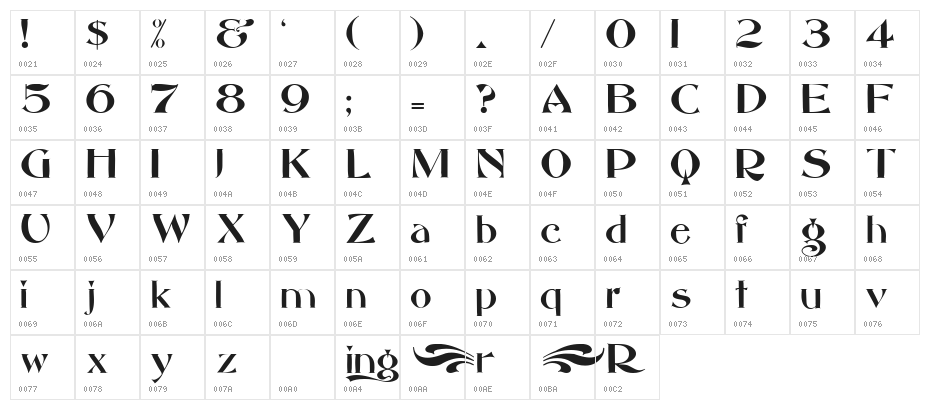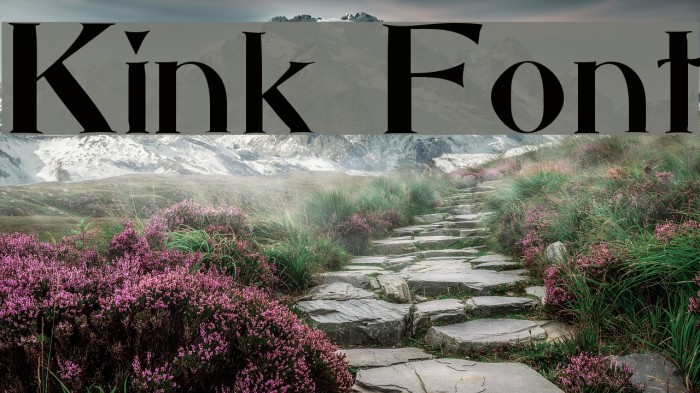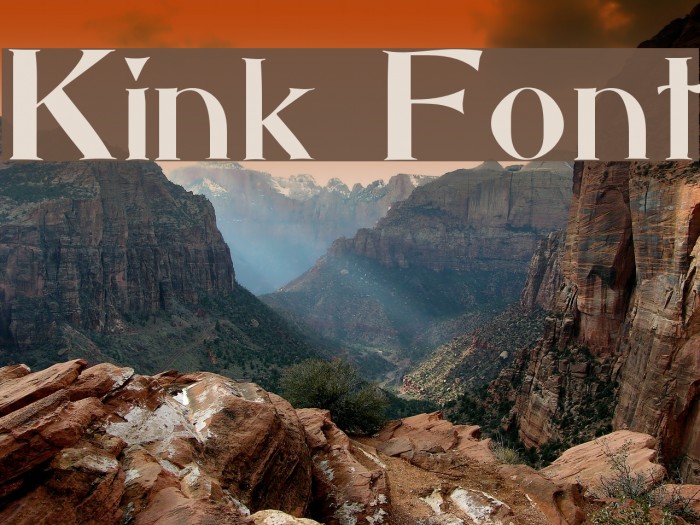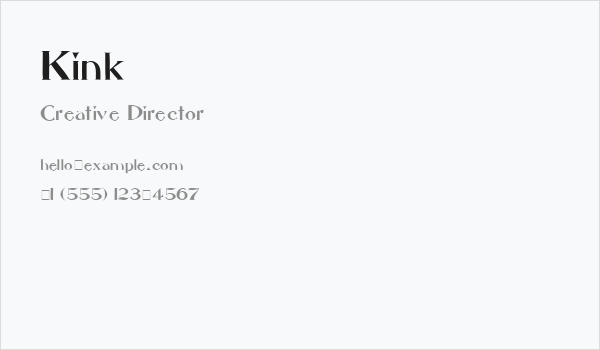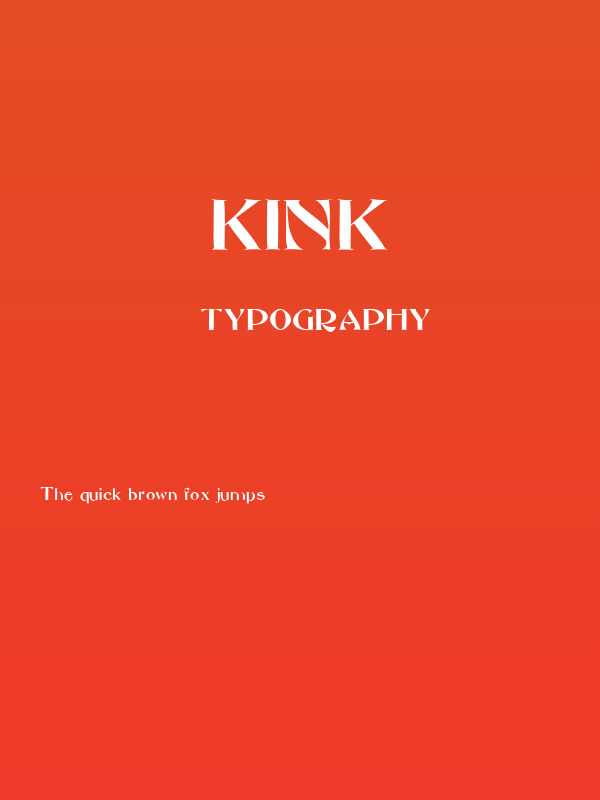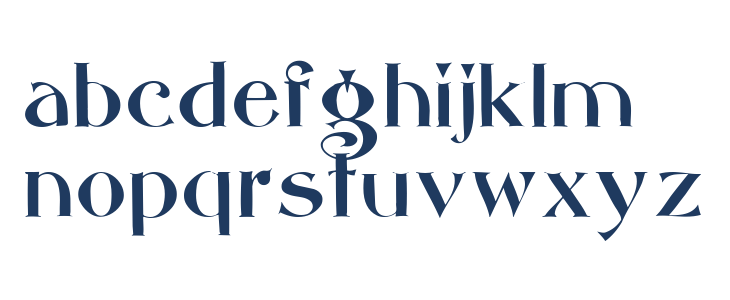
Kink Font
Kink Description
This font features a unique and striking design with sharp, angular serifs and a high contrast between thick and thin strokes. The uppercase letters exhibit a bold presence with distinct geometric cuts, while the lowercase letters maintain a consistent style with a touch of elegance. The numerals are equally bold and maintain the font's characteristic sharpness. Special characters are designed with flair, adding to the font's overall dramatic appearance. This font is ideal for making a statement, with its bold and artistic flair that captures attention.
| Proposed Projects | Ideal for branding, poster design, and editorial headlines where a dramatic and artistic touch is desired. |